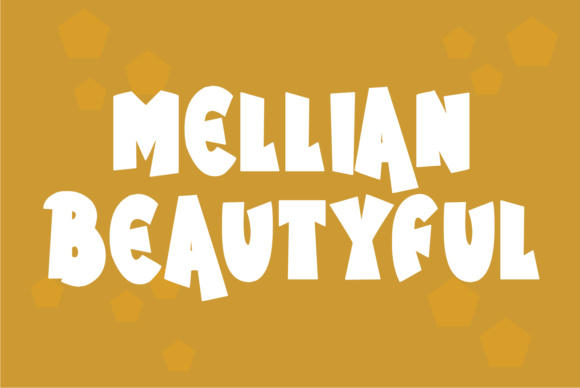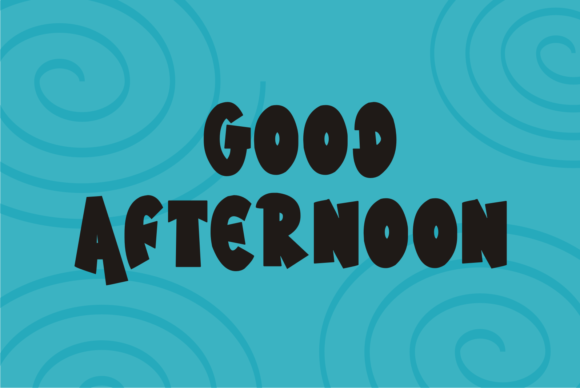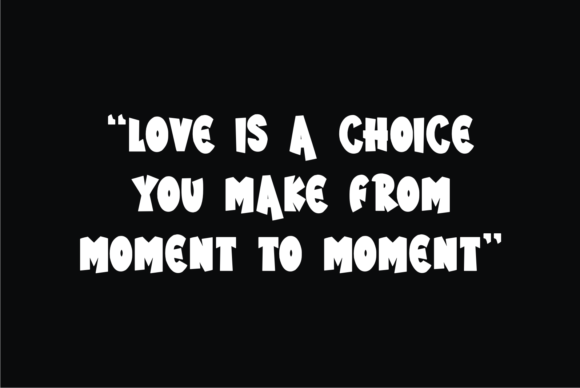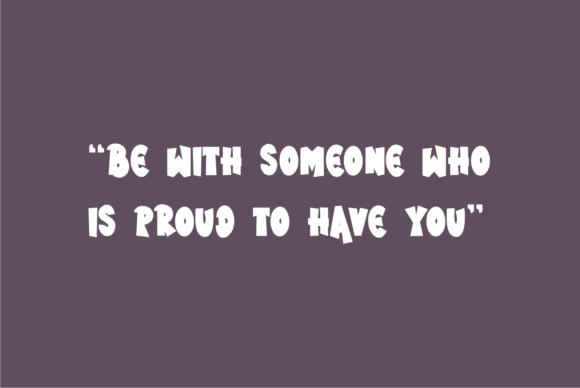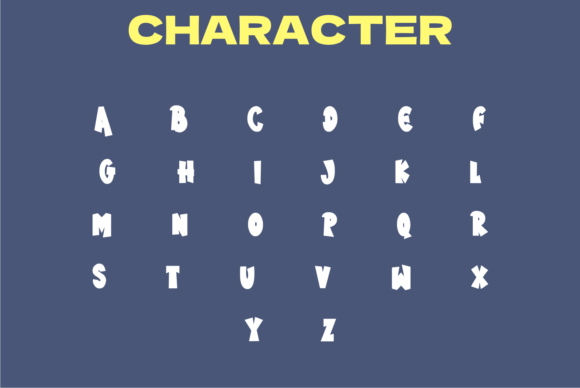
Auntuk Font: Elevate Your Designs with a Thick-Lettered and Cool Display Font
Are you tired of using the same old fonts in your designs? Do you want to add a touch of uniqueness and style to your creations? Look no further than Auntuk Font, a thick-lettered and cool display font that’s sure to take your designs to the next level. In this article, we’ll dive into the features and benefits of Auntuk Font, and explore how it can help you create stunning visuals that grab attention.
What is Auntuk Font?
Auntuk Font is a display font designed to make a statement. Its thick, bold letters are perfect for creating eye-catching headlines, titles, and captions that demand attention. With its simple yet strong visual effect, Auntuk Font is ideal for designers and crafters who want to add a touch of sophistication and style to their work.
Key Features of Auntuk Font
- Thick-Lettered: Auntuk Font features thick, bold letters that are perfect for creating striking headlines and titles.
- Cool Display Font: With its modern and sleek design, Auntuk Font is perfect for creating visually appealing displays and graphics.
- Simple yet Effective: Auntuk Font’s simple design makes it easy to read and understand, while its strong visual effect ensures it grabs attention.
- Versatile: Auntuk Font can be used for a wide range of design projects, from posters and flyers to social media graphics and website headers.
Benefits of Using Auntuk Font
So why should you choose Auntuk Font for your design projects? Here are just a few benefits of using this amazing font:
- Instantly Elevate Your Designs: With Auntuk Font, you can instantly add a touch of style and sophistication to your designs, making them more appealing to your audience.
- Stand Out from the Crowd: Auntuk Font’s unique design ensures that your creations will stand out from the crowd, grabbing attention and making a lasting impression.
- Easy to Read: Despite its bold design, Auntuk Font is easy to read and understand, making it perfect for use in a wide range of design projects.
- Time-Saving: With Auntuk Font, you can create stunning visuals in no time, saving you time and effort in the design process.
How to Use Auntuk Font in Your Designs
Using Auntuk Font in your designs is easy. Here are a few tips to get you started:
- Pair it with Other Fonts: Auntuk Font pairs well with other fonts, making it easy to create visually appealing combinations.
- Use it for Headlines and Titles: Auntuk Font is perfect for use in headlines and titles, where its bold design can really make an impact.
- Experiment with Colors: Auntuk Font looks great in a wide range of colors, so don’t be afraid to experiment and find the perfect hue for your design.
In conclusion, Auntuk Font is a game-changing display font that’s perfect for designers and crafters who want to elevate their designs and create stunning visuals. With its thick, bold letters and simple yet strong visual effect, Auntuk Font is sure to grab attention and make a lasting impression. So why wait? Try Auntuk Font today and take your designs to the next level!
Whether you’re a seasoned designer or just starting out, Auntuk Font is a must-have font for any design project. Its versatility, ease of use, and stunning design make it the perfect choice for creating visually appealing graphics, posters, flyers, and more. So go ahead, get creative with Auntuk Font, and watch your designs come to life!